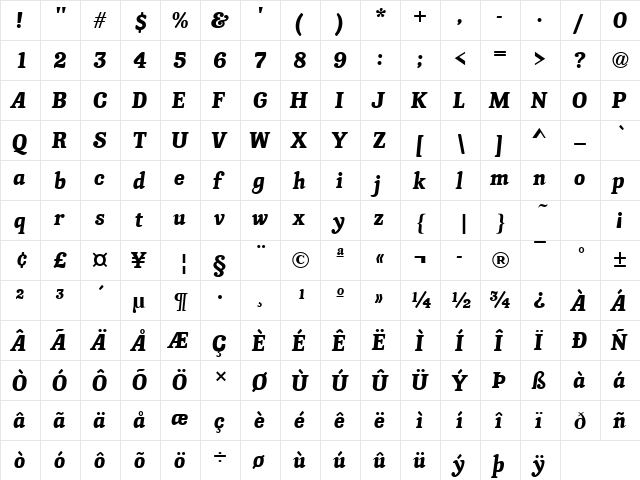
URWKlaprothD Regular
Design Context for URWKlaprothD Typeface
URWKlaprothD takes a measured approach to typography — its balanced proportions and neutral character make it a reliable workhorse for both digital and print work.